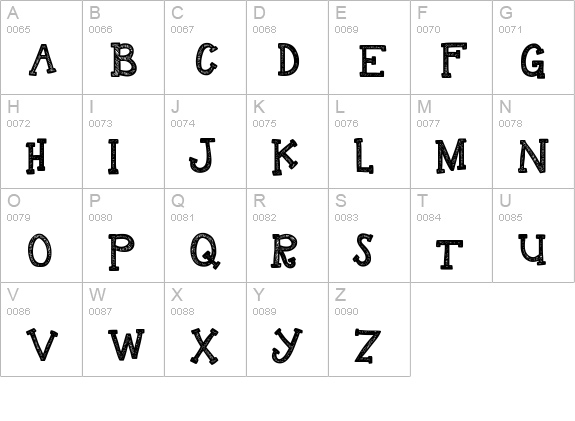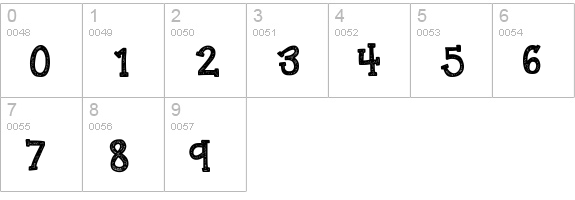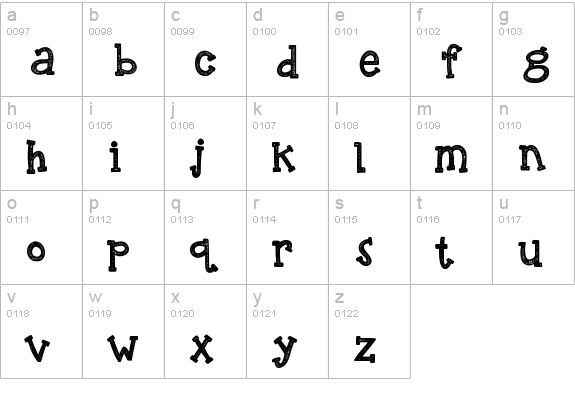
Introducing KBREINDEERGAMES, a whimsical and playful font that is sure to bring joy to any design project. This font embodies the spirit of holiday cheer and brings a touch of magic to your creations. With its charmingly rounded letters and festive details, KBREINDEERGAMES is perfect for adding a touch of whimsy to invitations, greeting cards, posters, and more. But what makes KBREINDEERGAMES even more special is that it is available for free! That's right, you can freely download this delightful font at FontsMarket.com. Whether you're a professional designer or simply a creative enthusiast, KBREINDEERGAMES offers you the opportunity to add a touch of holiday magic to your work without breaking the bank. With KBREINDEERGAMES, you can easily create eye-catching headlines, captivating logos, and charming typography that will capture the hearts and imaginations of your audience. Its versatility allows it to be used for a wide range of projects, from festive holiday cards to children's book illustrations. So why wait? Don't miss out on this amazing opportunity to bring the joy and whimsy of KBREINDEERGAMES into your designs. Download it for free at FontsMarket.com and let your creativity soar this holiday season.